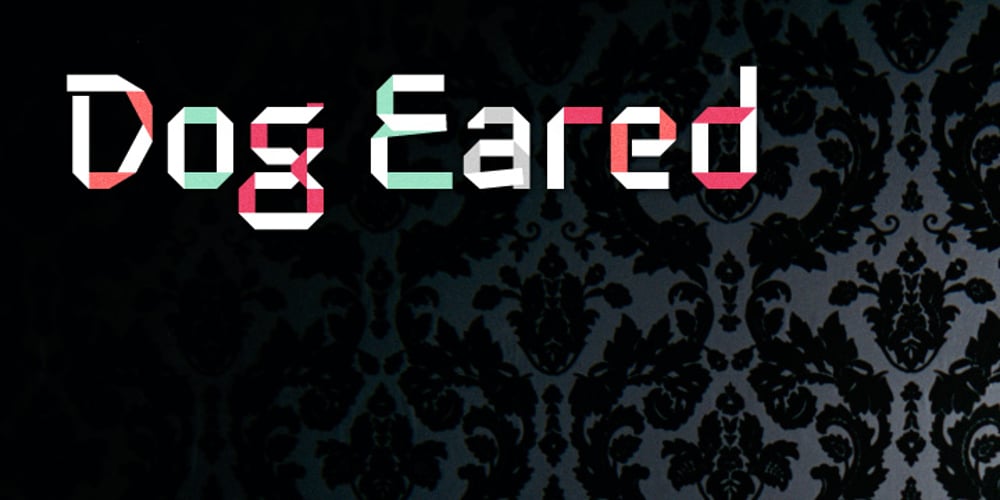
Dog Eared Font Family was designed by Andy Babb and published by Andy Babb. Dog Eared contains 3 styles and family package options. Each character of Dog Eared began its life as a half-inch wide strip of paper, folded and Scotch-taped into formation, and then scanned and recreated digitally. Dog Eared is distinguished from other folded paper style typefaces by its robustness and versatility: each numeral and upper- and lowercase letter has a stylistic alternate. Dog Eared Striped is a traditional single color font, while Dog Eared Solid is a chromatic variant that can be used for a two-toned effect. Layer and multiply Dog Eared Striped and Dog Eared Solid together to achieve even more color variety.